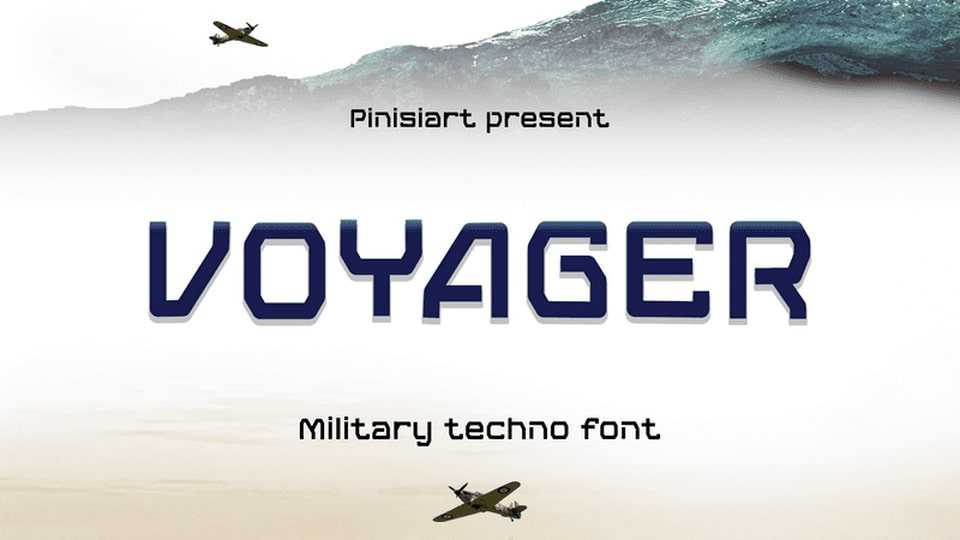
Download Voyager font, a military techno display typeface. Robotic, military tech, and all about future technology. Voyager will give you the edge of it.